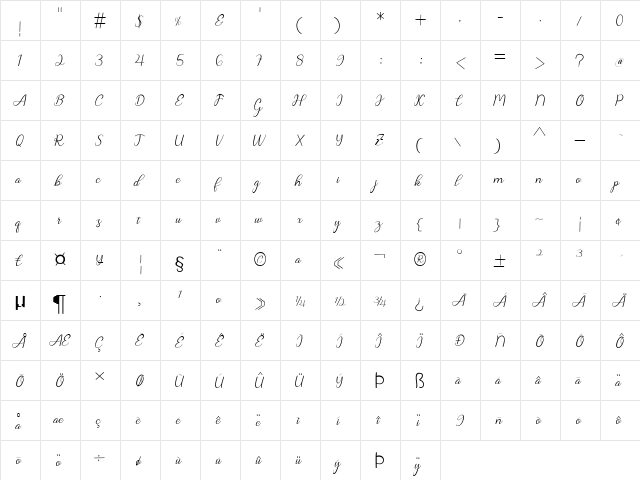
Chanteka Regular
Design Context for Chanteka Typeface
Chanteka is a composed and adaptable typeface that performs quietly and consistently across a wide range of design contexts.